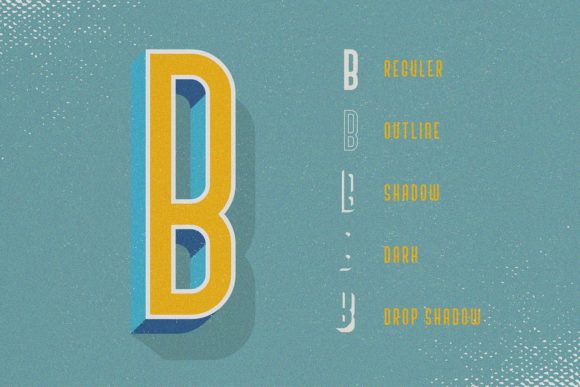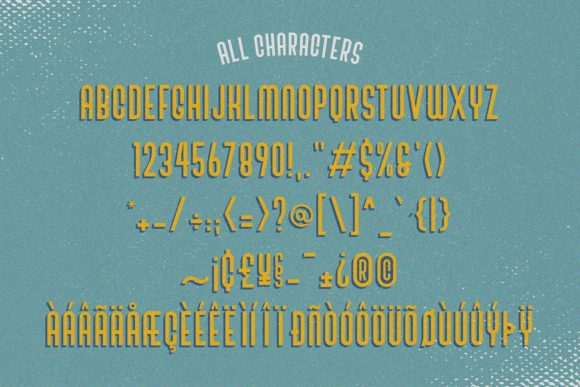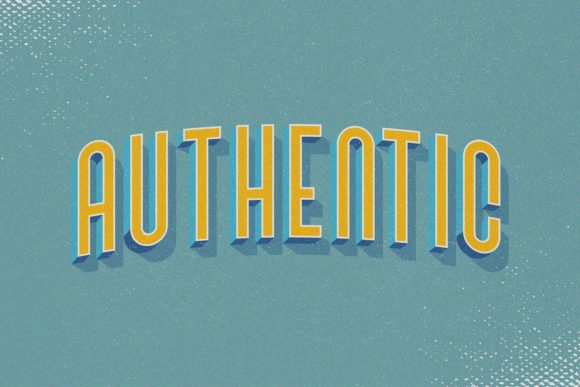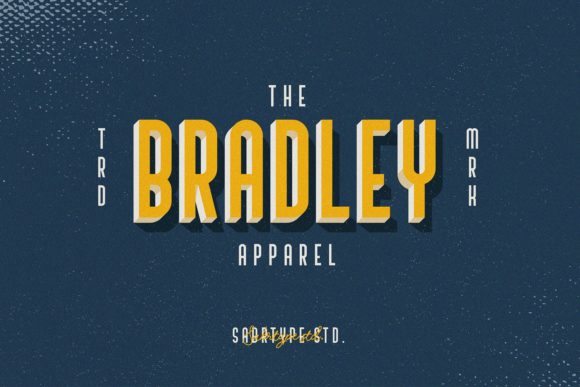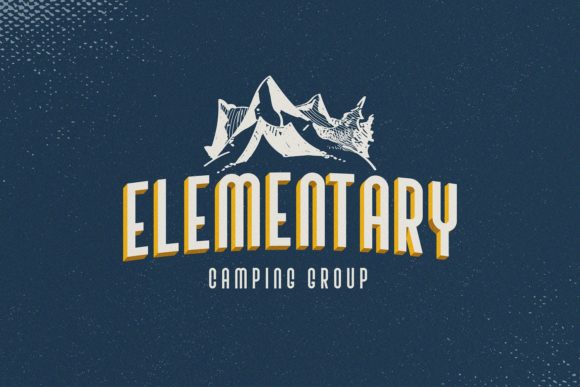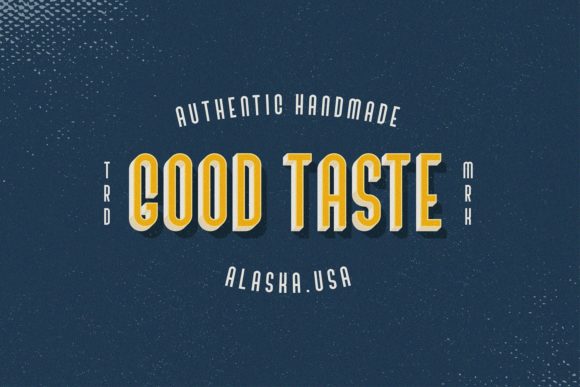
The Ultimate Game-Changer for Your Next 3D Design Project
There’s nothing quite like the thrill of staring at a blank canvas, waiting for inspiration to strike. You’ve got a vision in your head, but it’s hard to put it into words. And then, suddenly, it clicks – you’ve got the perfect idea for a 3D design project that’s going to blow your audience away. But, you need the right tools to bring it to life.
Enter the Bivoac Font – a game-changing, layered display font that’s about to become your new best friend. With 5 styles to choose from, you’ll have endless possibilities to create unique and captivating designs. Whether you’re a seasoned designer or just starting out, the Bivoac Font is the perfect addition to your toolkit, making it easy to achieve professional-looking results without breaking a sweat.
Bivouac Font Key Features
- Unique Characteristics: Bivouac Font features a unique blend of rustic and elegant elements, with subtle texture and weathering effects that evoke a sense of adventure and exploration.
- Legibility: Despite its rugged appearance, Bivouac Font is highly legible, with clear letterforms and a consistent x-height that ensures easy reading.
Bivoac Font Review
I recently had the chance to work with the Bivoac font, and overall, I was pleasantly surprised. Here are my honest thoughts on what works well and what doesn’t.
- Unique Character**: Bivoac has a distinct, modern look that can add a touch of elegance to any design.
- Legibility**: The font is well-readable, making it suitable for body text and headlines alike.
- Customizability**: Bivoac offers a range of weights and styles, allowing designers to choose the perfect fit for their project.
- Limited Language Support**: Bivoac’s language support is somewhat limited, which may be a concern for designers working with non-English clients.
- Not Ideal for Small Text**: The font’s x-height can make it difficult to read in small sizes, which may require designers to use alternative fonts or adjustments.
While Bivoac has its limitations, I found it to be a solid choice for modern designs. Its unique character and legibility make it a great addition to any font library. However, designers should be aware of its limitations and choose it wisely.
Tips for Getting the Most Out of Bivoac Font
Use Bivoac Font for headings and titles to add a touch of sophistication and elegance to your designs.
Experiment with different font sizes and colors to create visual interest and hierarchy in your designs.
Use Bivoac Font in conjunction with other fonts to create a unique and eye-catching typography style.
Bivoac Font is ideal for:
Magazine and newspaper headlines
Branding and logo